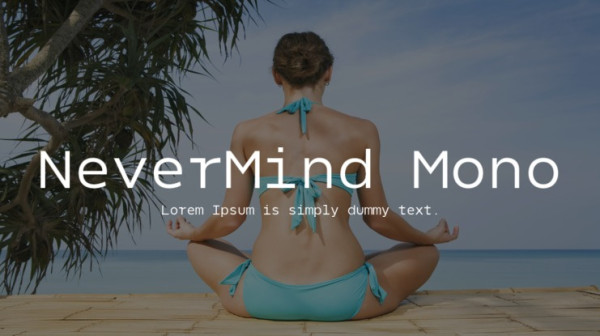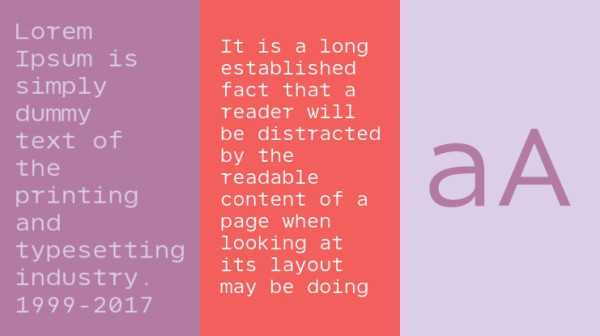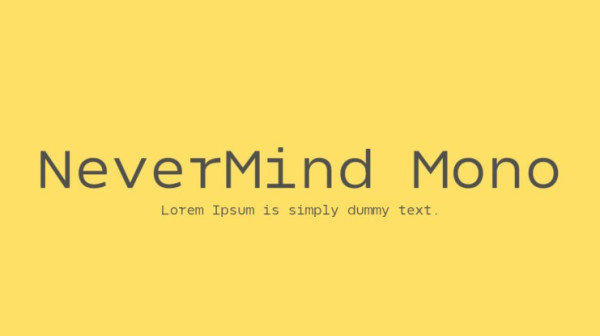
Nevermind Mono Font
Nevermind Mono Font by XMind Ltd is a monospaced typeface with character and warmth. Geometric and humanist, it can be used for all types of communication.
NevermindMono is a part of Nevermind font family that currently includes one basic typeface and more than ten different fonts in various styles, including round, handwritten, serif and so on.